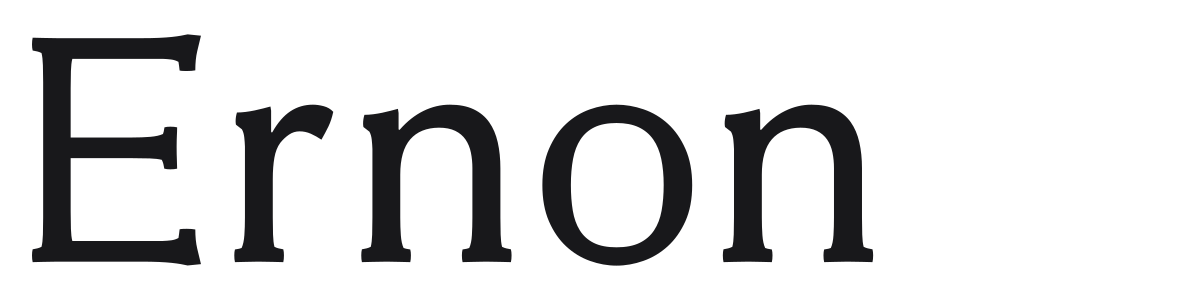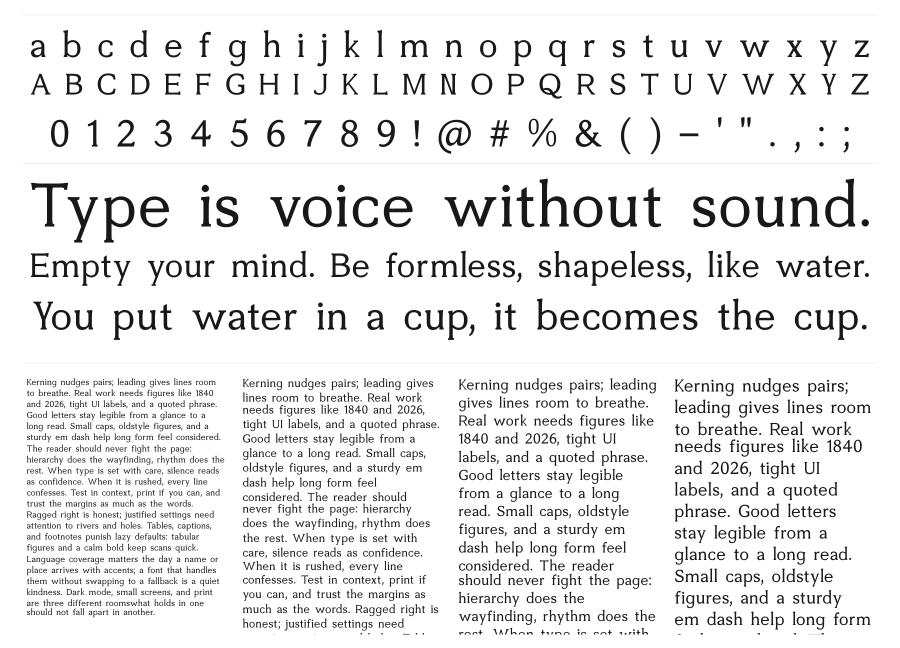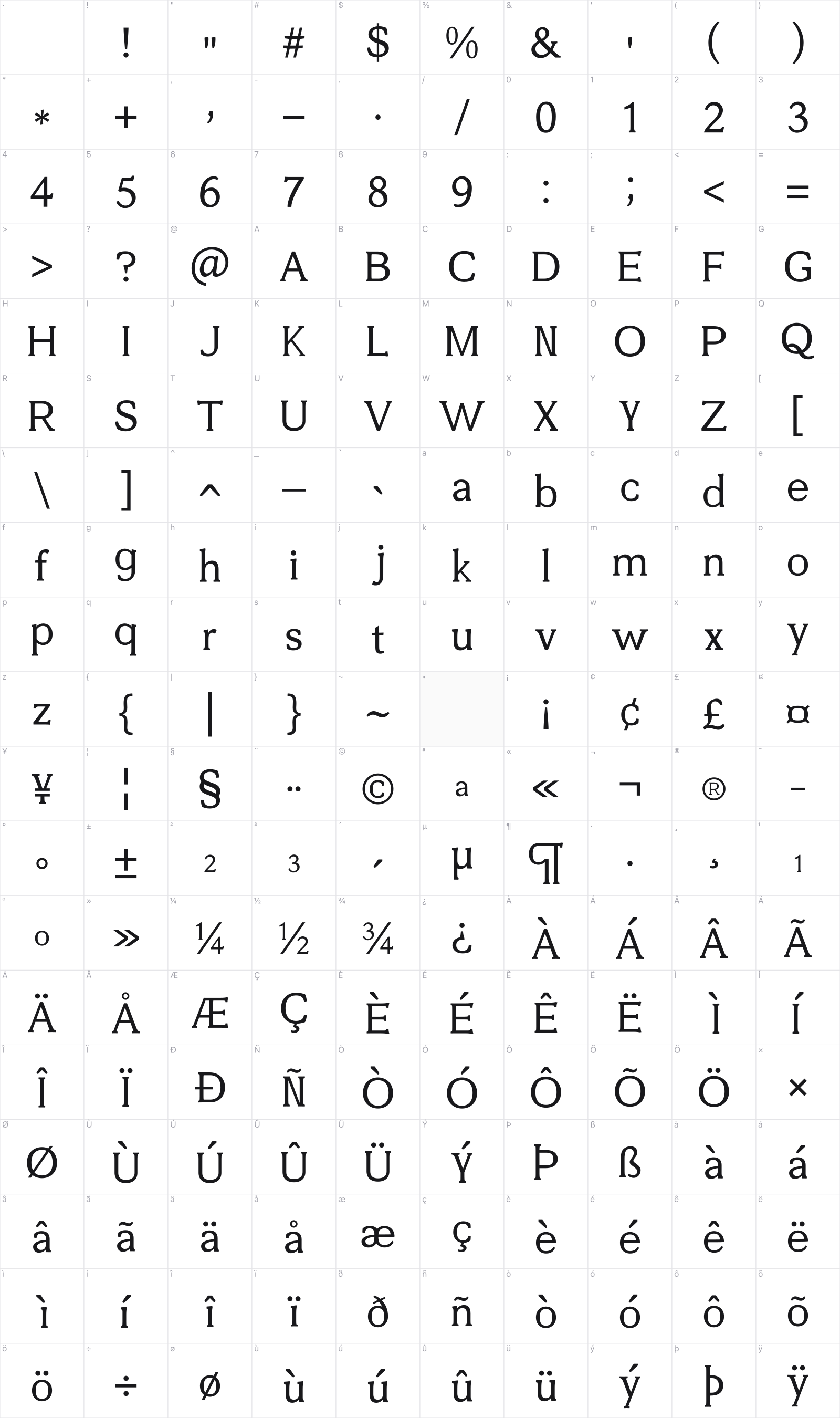
Ernon
Ernon is a clean humanist serif with low stroke contrast and warm, open proportions. It sits comfortably between the rational precision of a transitional serif and the organic ease of a humanist text face. A reliable choice for editorial work, corporate text, and anywhere legibility needs to feel effortless rather than mechanical.